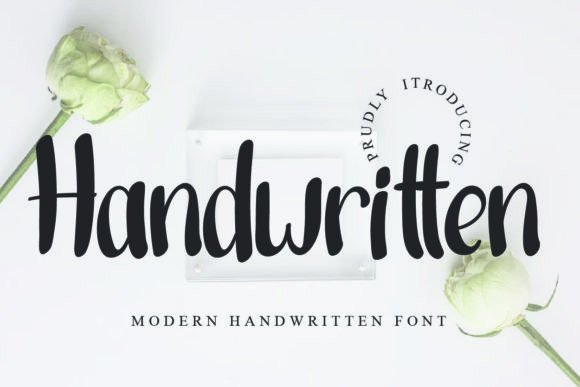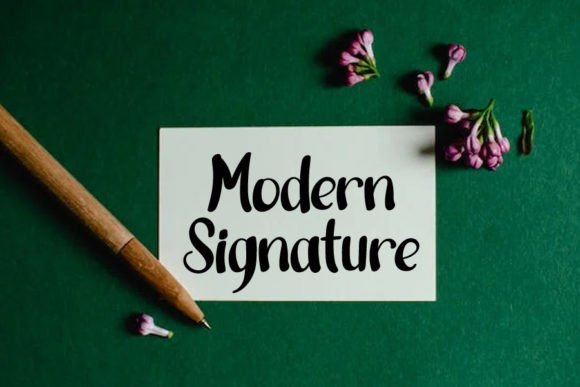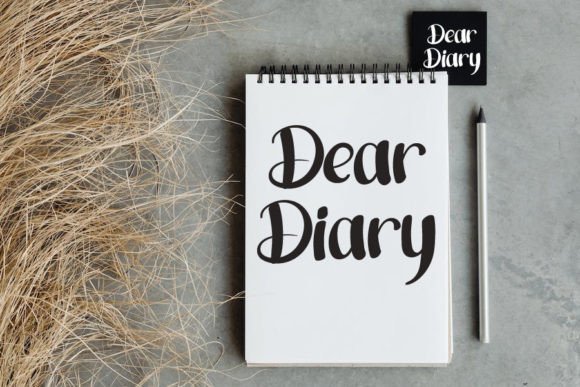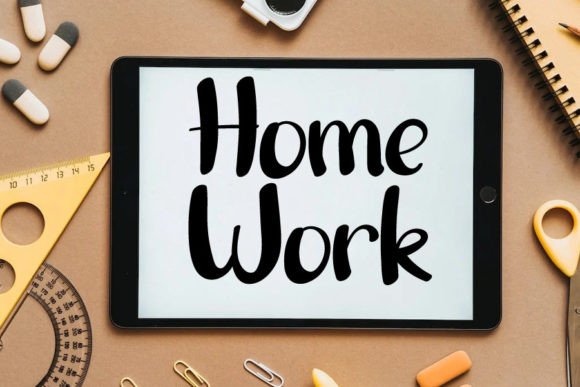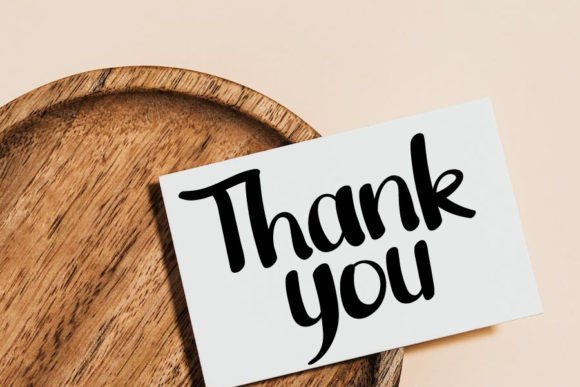
**Handwritten Font: Casual Freshness for All Occasions**
The Handwritten font is a fresh and casual typeface that can effortlessly become your go-to font for a variety of design projects. With its relaxed and approachable style, this font adds a touch of informality and personality to your creations. Here are some ways you can use the Handwritten font effectively:
1. **Greeting Cards:** Create warm and personalized greeting cards for birthdays, holidays, or special occasions. The casual charm of the Handwritten font makes your messages feel heartfelt.
2. **Digital Design:** Incorporate the font into your digital designs, including social media graphics, blog post headers, and website elements. Its friendly appearance adds a human touch to your online presence.
3. **Craft Projects:** Use the font for crafting, including scrapbooking, DIY labels, and handmade gift tags. Its fresh and casual style complements a wide range of crafty endeavors.
4. **Presentations:** Enhance your presentations, whether for business or educational purposes. The Handwritten font can make your slides more engaging and approachable.
5. **Event Invitations:** Craft event invitations, from casual gatherings to formal parties. The font’s versatility allows you to adapt it to the tone of the event.
6. **Blog Headers:** Design eye-catching blog post headers and titles. The font’s casual freshness can make your blog more appealing to readers.
7. **Recipe Cards:** Create stylish recipe cards or food blog graphics. The Handwritten font can add a touch of homemade charm to your culinary creations.
8. **Quotes and Typography Art:** Design beautiful typographic art featuring inspirational quotes or phrases. The font’s casual style can make your designs more relatable.
9. **DIY Labels:** Customize labels for homemade products, such as jams, candles, or skincare items. The Handwritten font adds authenticity to your branding.
10. **Stationery:** Design personalized stationery sets, including notecards and letterheads. The font’s freshness can make your correspondence more enjoyable.
11. **Social Media Posts:** Craft engaging and shareable social media posts. The Handwritten font is ideal for adding a friendly and inviting feel to your content.
12. **Children’s Book Covers:** Create playful and approachable book covers for children’s literature. The font’s casual charm can resonate with young readers.
13. **Logo Concepts:** Experiment with the font in logo design concepts for casual and contemporary brands. Its fresh appeal can help brands connect with their target audience.
14. **Party Decorations:** Design party banners, signs, and decorations for various celebrations. The Handwritten font can set the mood for a festive atmosphere.
15. **Photography Overlays:** Overlay the font onto your photography to add captions, dates, or personalized messages. Its casual style complements various photography styles.
16. **Typography Experiments:** Use the Handwritten font in creative typography projects, experimenting with layout and color to push the boundaries of design.
The Handwritten font’s fresh and casual aesthetic makes it a versatile choice for a wide range of design projects. Its ability to convey informality and friendliness makes it a favorite font for creating approachable and engaging visuals, regardless of the occasion.